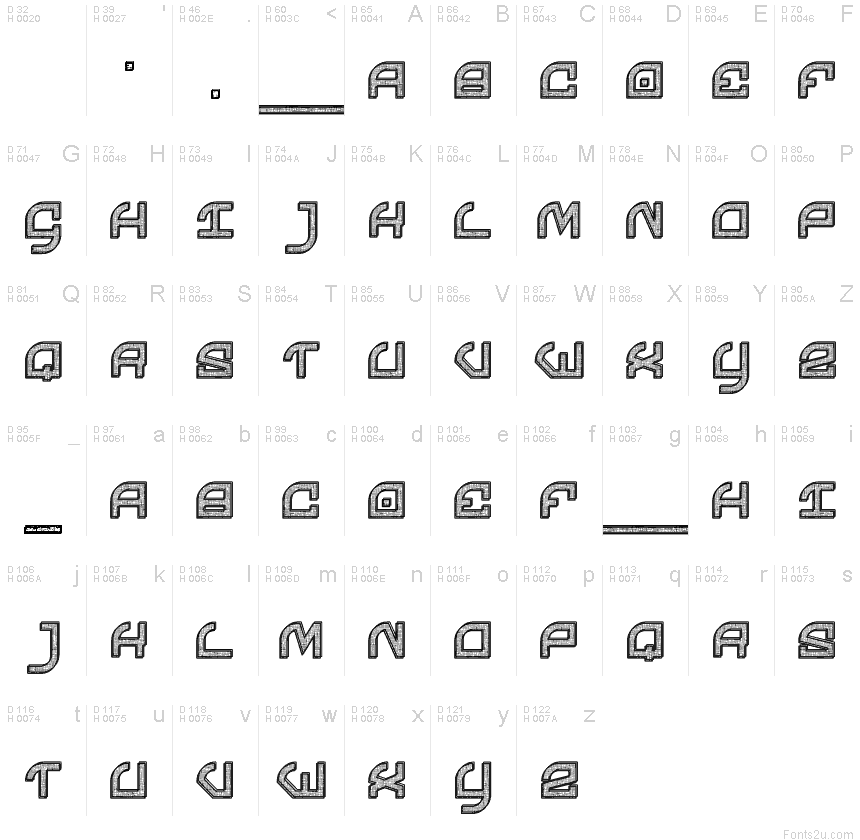
Chomage is a free eroded futuristic display font with broad, geometric forms and a sharply outlined industrial build. Its dense crosshatched interiors resemble scratched metal or a technical wireframe.
Digital game graphics are a particularly convincing setting, since the open forms and mechanical texture suggest industrial machinery, circuitry, constructed environments, and heavy physical control systems. That same graphic treatment suits science fiction publishing, electronic album art, and event posters built around technological themes. On tech packaging, the lettering can act like an engineered label and become part of a product identity by echoing schematics, etched panels, or compact diagnostic screens.